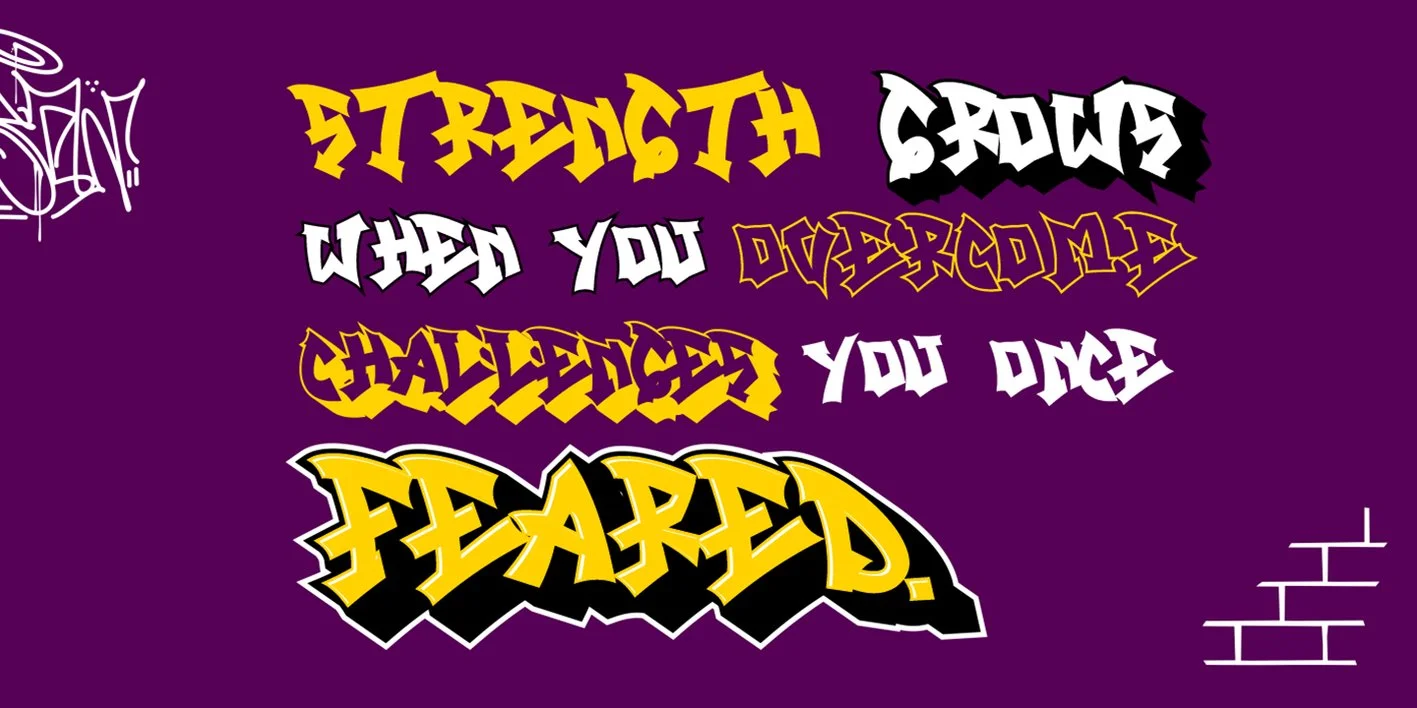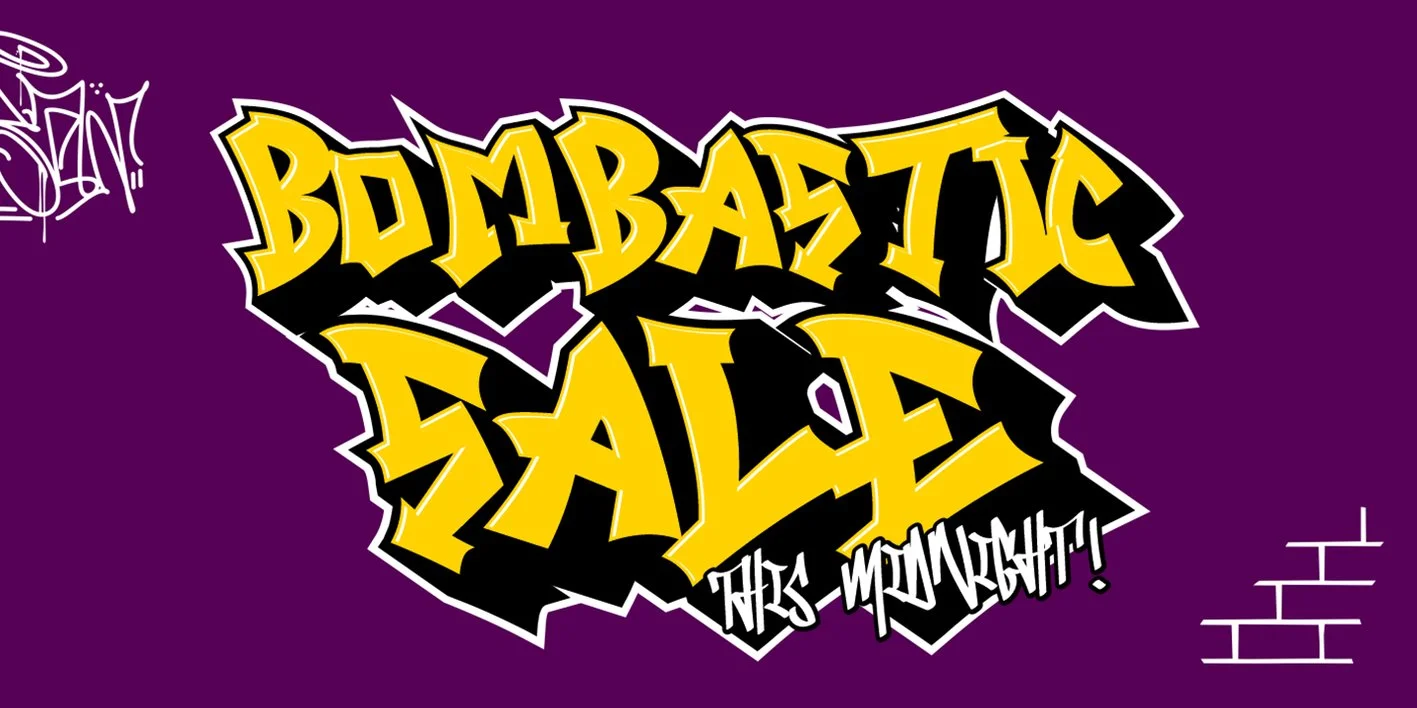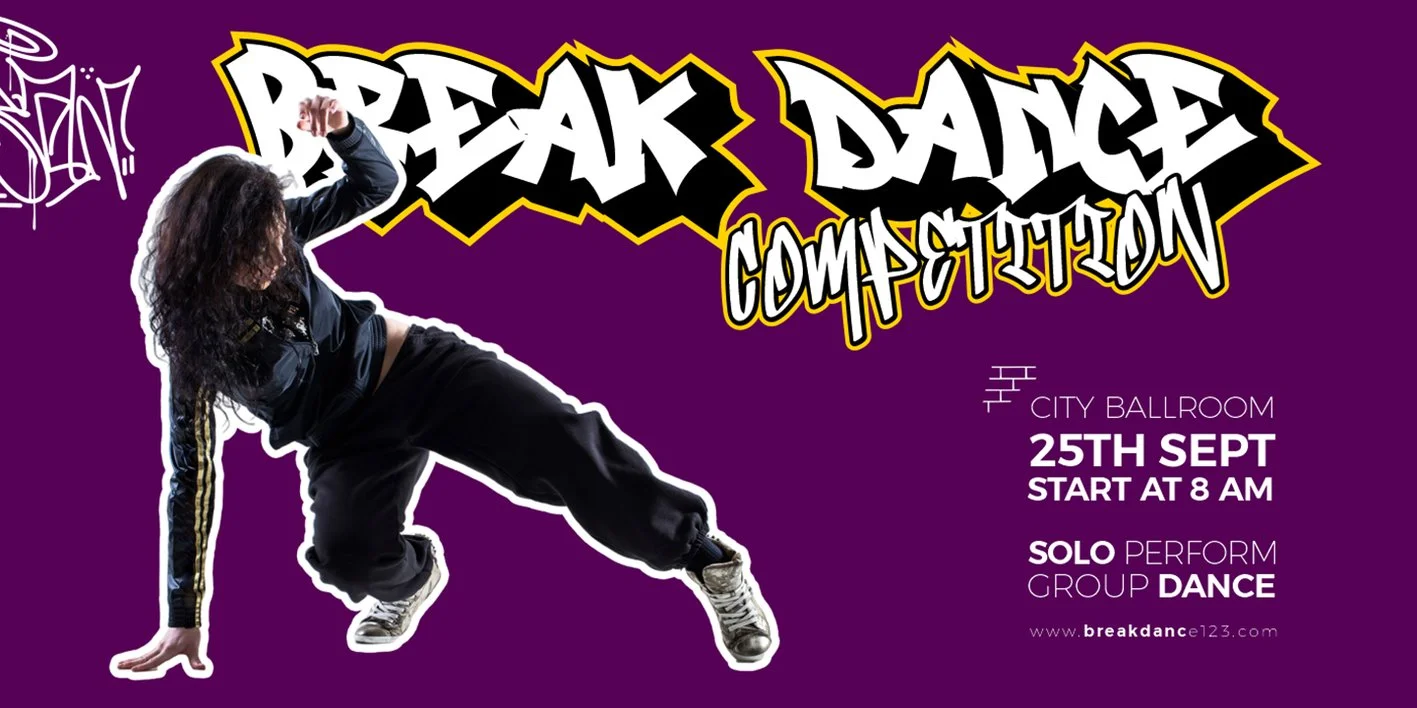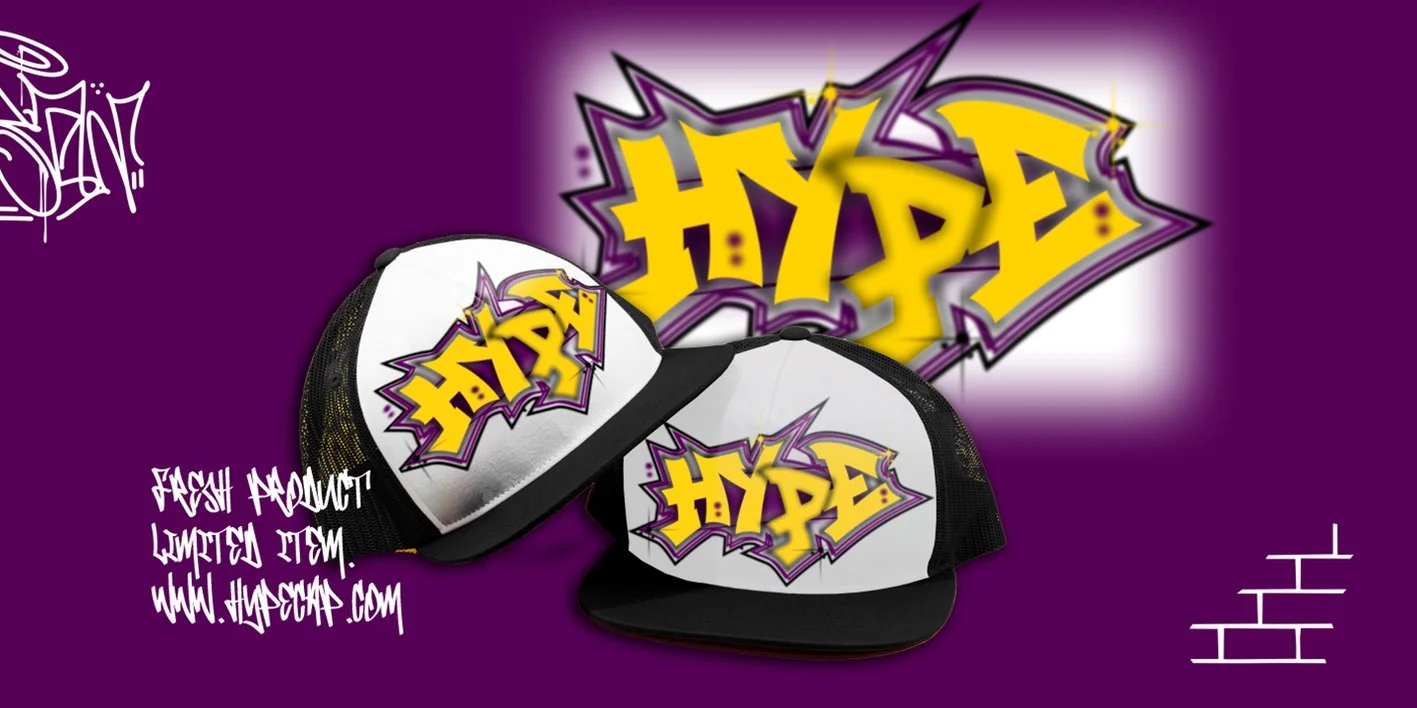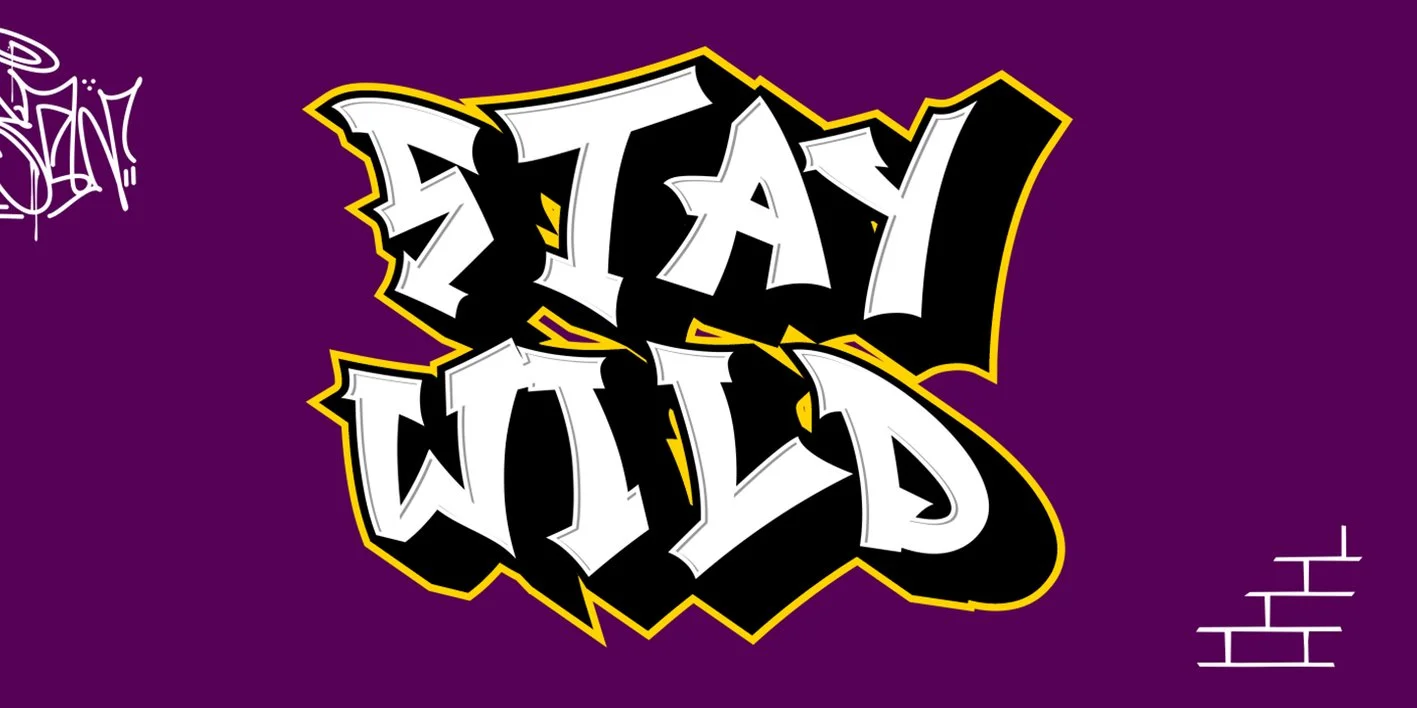
Track Junk Font
There is a particular satisfaction in finding a typeface that delivers distinctive character without sacrificing readability without compromise. Track Junk consistently provides it. The typeface brings a versatile sensibility to a broad range of creative disciplines, with controlled contrast that rewards close inspection that holds up whether the work is print-first or screen-first.
In practice, Track Junk proves particularly effective for social media graphics, brand identity systems, logo design, poster creation, product labels. Designers reaching for it find that the type decisions feel resolved rather than laboured — a useful quality when client timelines are tight.
The range of applications extends to advertising campaigns, environmental graphics, packaging design, annual reports. That breadth is deliberate: the proportions and spacing were stress-tested across a wide range of mock briefs before the typeface was finalised.
The proportions balance x-height, cap height, and ascender length to produce a face that reads confidently at body copy sizes without losing presence at display scale. Sidebearings were derived from visual rhythm testing rather than mathematical calculation alone.
Independent studios handling packaging and editorial work find Track Junk a reliable choice for projects that demand both personality and restraint. The design avoids the self-conscious quirkiness that dates quickly, settling instead for considered distinctiveness that holds up over time.